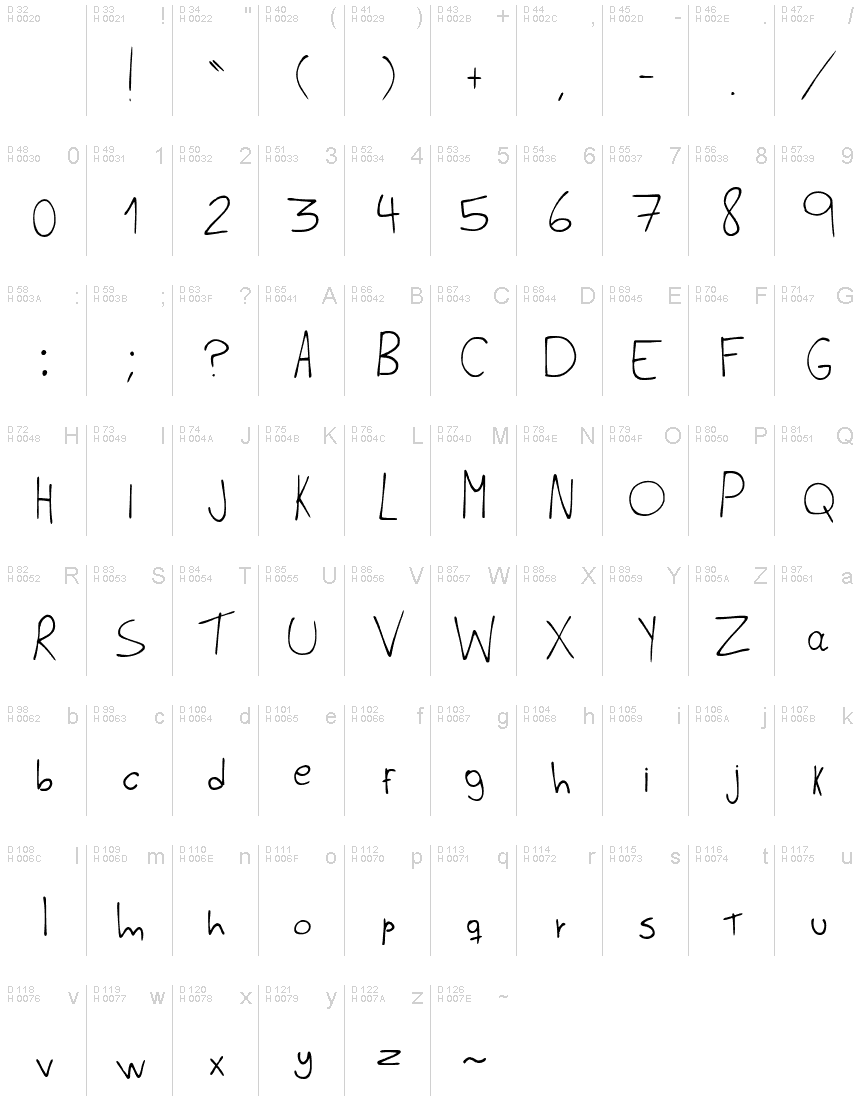
Chuu Messy Handwriting Regular
Chuu Messy Handwriting is the perfect font for adding a touch of whimsy to your projects. Designed by nakaharaeffect, this casual handwritten font has a playful and unique style that's sure to catch the eye. With its semi-light weight, it's easy to read and adds a personal touch to any project. Use this font for anything from invitations and greeting cards to social media graphics and blog posts. Its versatile style makes it suitable for both personal and professional use, so let your creativity run wild with Chuu Messy Handwriting!